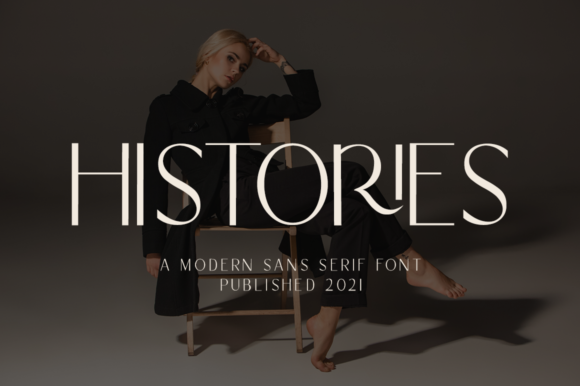
Meet Histories, the modern sans serif font that's bound to make your business invoices shine. Its clean lines and crisp edges convey professionalism and attention to detail, leaving a lasting impression on your clients.
Crafted by the talented RockboyStudio, Histories is the embodiment of elegance and clarity. Each character is designed with meticulous precision, ensuring readability and a sophisticated aesthetic.
With Histories, your invoices will radiate an air of authority and trust. Its timeless design complements a wide range of business styles, making it the perfect choice for companies seeking a font that exudes both reliability and a touch of modernity.
Imagine your invoices adorned with Histories' graceful curves and sharp angles. The font's inherent charm will captivate your clients, enhancing their overall experience and solidifying your reputation as a company that values professionalism and excellence.